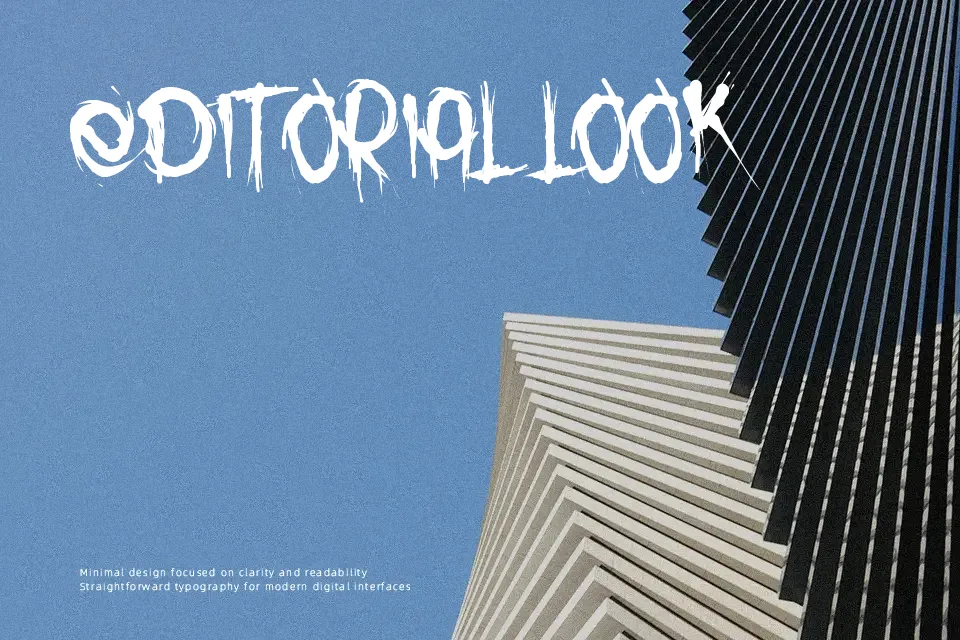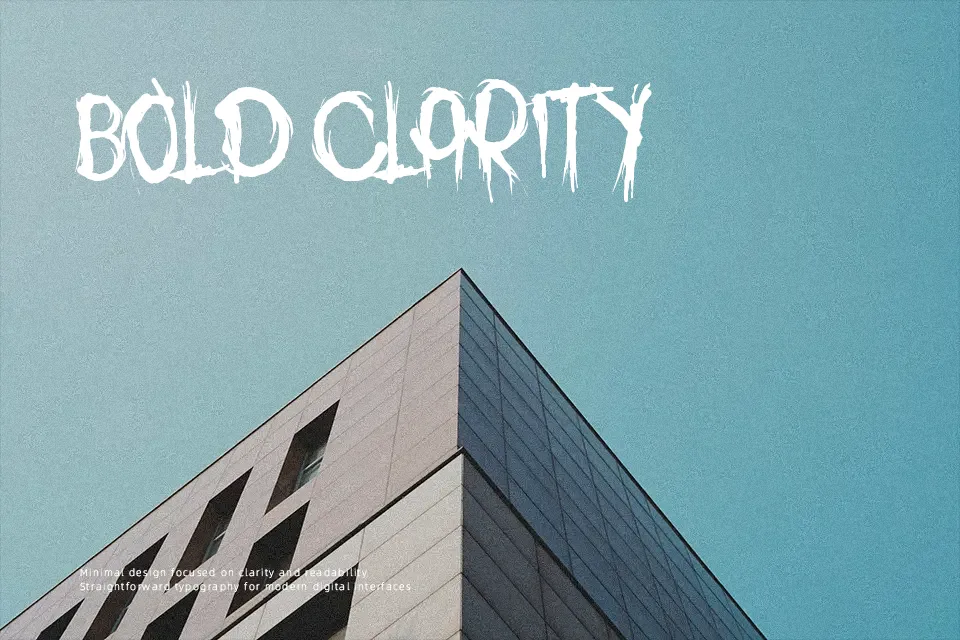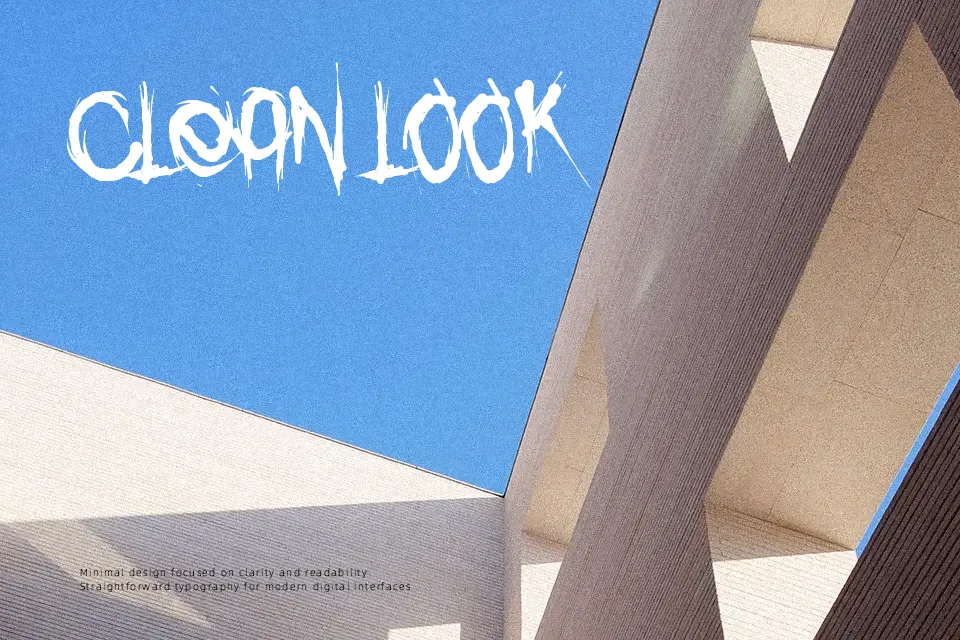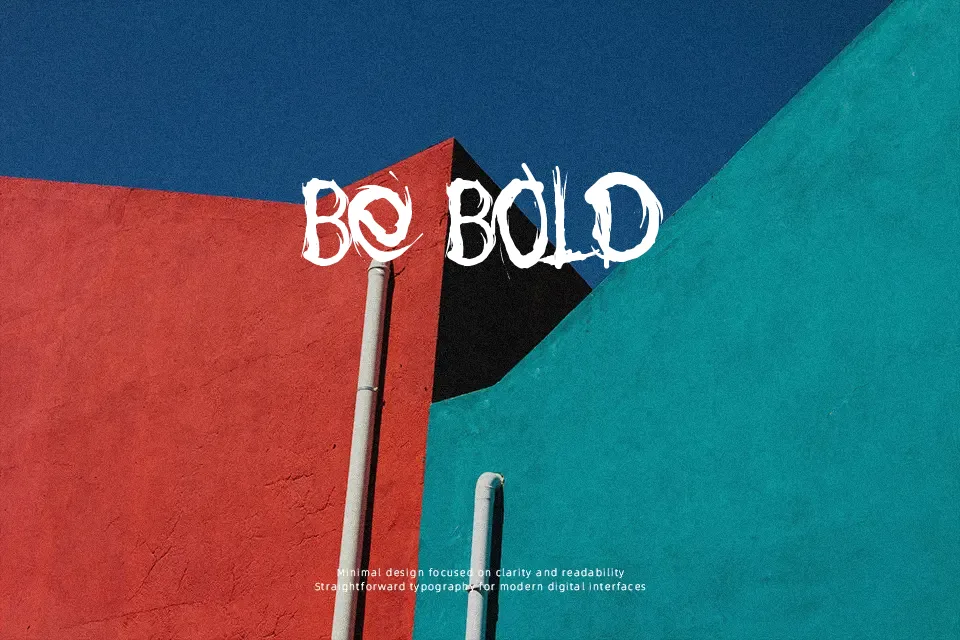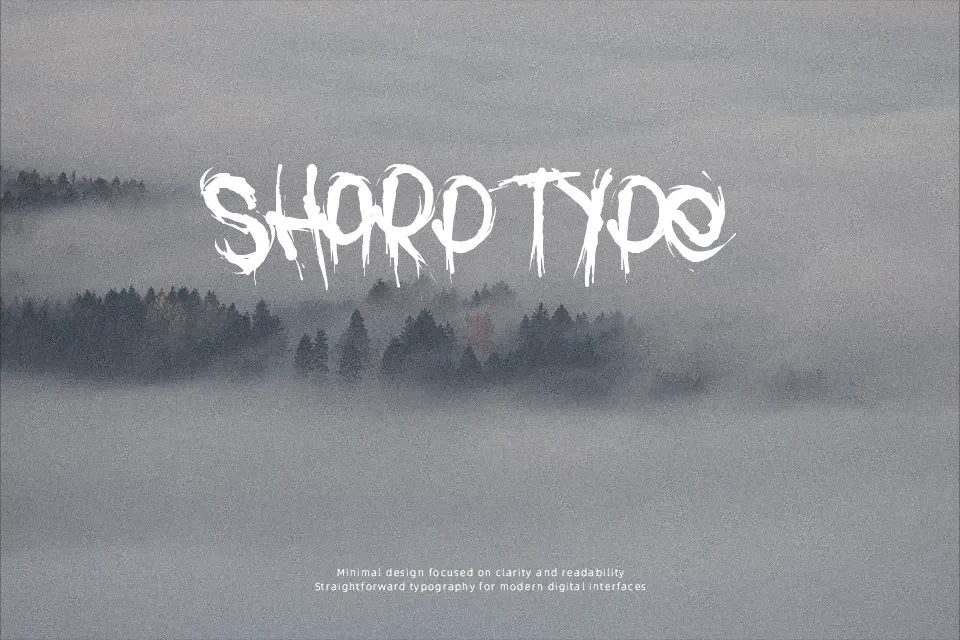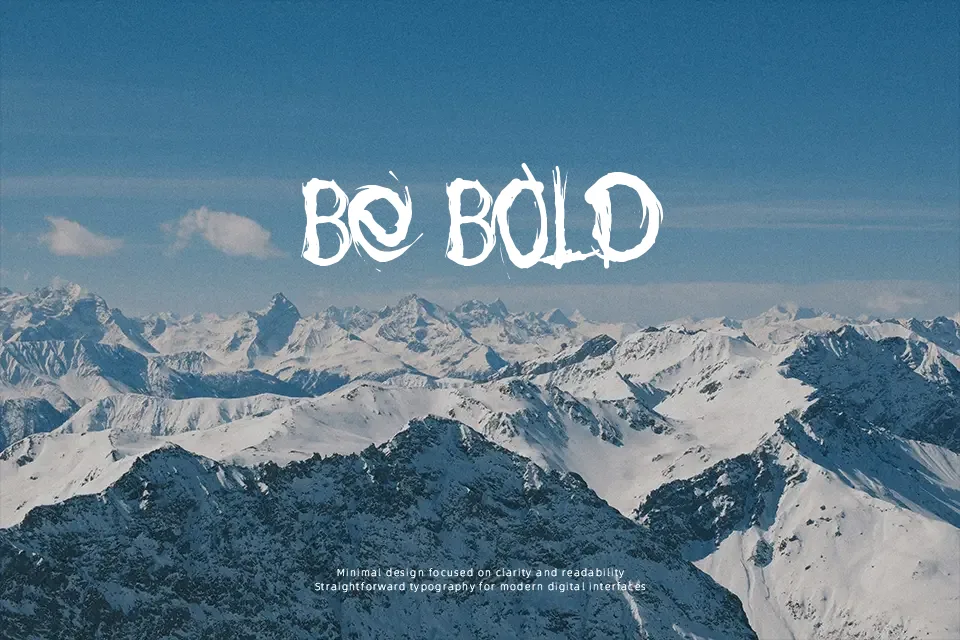
Pack of Wolves Font
Pack of Wolves Font works best when displayed at larger sizes, where its irregular brush-like strokes and torn-looking edges remain visible. The uppercase letterforms are broad and forceful, while the uneven contours give short words a raw, distressed rhythm. Spacing appears fairly open enough to separate the textured shapes in headlines, helping titles retain impact on posters and cover art. Numerals and basic punctuation follow the same expressive approach. It is a practical choice for brief, high-contrast compositions, but its rough detail becomes harder to read in small captions or extended text.
Best For: horror movie posters,dark music cover art,Halloween event headlines,apparel graphics
Perfect for halloween, headline, and music, with a dark and brush style.